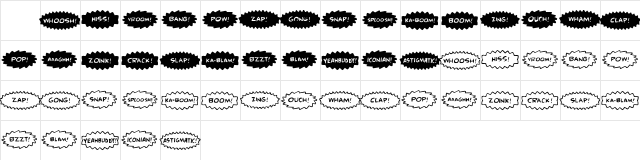
Comic FX Regular
Design Context for Comic FX Typeface
Comic FX trades formality for fun, with bouncy, characterful letterforms that bring warmth and energy to any project.
Font Pairing: Pairs well with a rounded or humanist sans for body copy, maintaining the friendly tone without relying on Comic FX to carry extended reading.
Pro Tip: Use Comic FX at larger display sizes where its expressive character can land. Pair with a clean, simple sans for body copy to maintain readability.